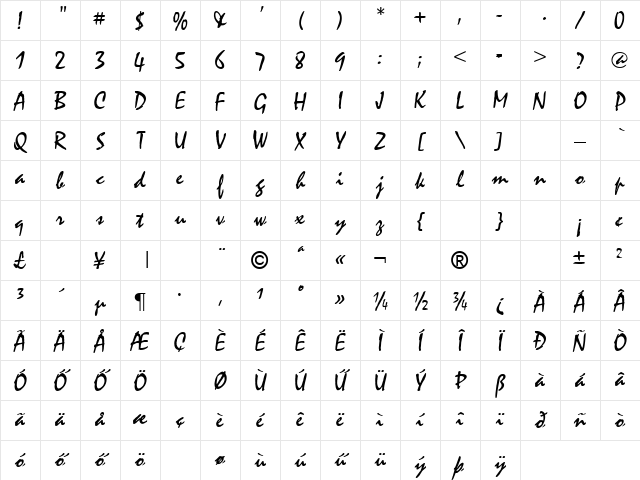
H_COMATO Regular Free Font
H_COMATO Regular
Design Context for H_COMATO
H_COMATO is a composed and adaptable typeface that performs quietly and consistently across a wide range of design contexts.